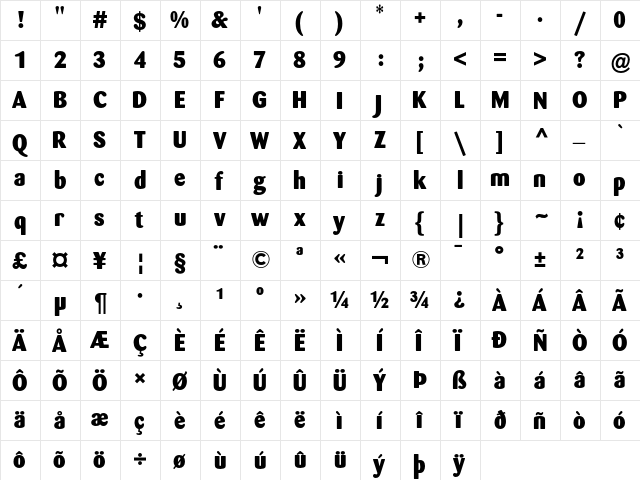
Barmeno Extra Bold
Design Context for Barmeno Typeface
Barmeno offers clean, dependable letterforms without strong stylistic allegiance, making it a practical choice for designers who need flexibility. The heavy weight commands attention and anchors typographic hierarchies.
Pro Tip: Use Barmeno in both headline and body roles to test its range before committing to a single application.